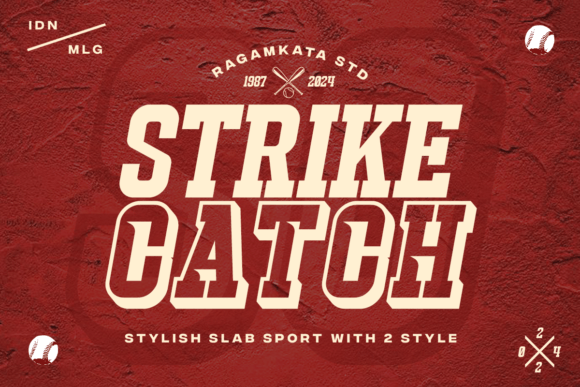
Introducing Strike Catch Font: The Ultimate Slab Sport Font for Modern Designs
Are you looking for a font that combines the power and speed of modern sports with the elegance of classic design? Look no further than Strike Catch, a stylish slab sport font that is perfect for a wide range of design projects. With its smooth curves, clear alternates, and modern aesthetics, Strike Catch is ideal for sports headlines, logos, branding, and more.
What is Strike Catch Font?
Strike Catch is a slab sport font that features 12 styles, including Regular, Italic, Outline, Extrude, Italic Outline, Italic Extrude, Slash, Slash Italic, Slash Outline, Slash Extrude, Slash Italic Outline, and Slash Italic Extrude. This versatile font is designed to add a powerful, attractive, and contemporary touch to any design.
Key Features of Strike Catch Font
- 12 styles: Regular, Italic, Outline, Extrude, Italic Outline, Italic Extrude, Slash, Slash Italic, Slash Outline, Slash Extrude, Slash Italic Outline, and Slash Italic Extrude
- Smooth curves: Giving the font a modern and sleek look
- Clear alternates: Ensuring readability and versatility
- Modern aesthetics: Perfect for sports headlines, logos, branding, and more
Use Cases for Strike Catch Font
Strike Catch is a versatile font that can be used for a wide range of design projects, including:
- Sports headlines: Add a powerful and dynamic touch to your sports news headlines
- Logos and branding: Create a strong and recognizable brand identity with Strike Catch
- Invitations: Add a touch of modern elegance to your invitations
- Magazines: Use Strike Catch for article titles, headings, and more
- Product packaging: Make your product stand out with a bold and eye-catching font
- Posters: Create striking posters with Strike Catch’s modern and sleek design
Who Can Benefit from Strike Catch Font?
Strike Catch is ideal for:
- Personal projects: Add a professional touch to your personal design projects
- Studios: Use Strike Catch for client projects and add a modern twist to your designs
- Corporate: Create a strong and recognizable brand identity with Strike Catch
- Creative agencies: Use Strike Catch for client projects and add a touch of modern elegance to your designs
Why Choose Strike Catch Font?
There are many reasons to choose Strike Catch font for your design projects. Here are a few:
- Unique design: Strike Catch has a unique and modern design that will set your project apart
- Versatility: With 12 styles to choose from, Strike Catch can be used for a wide range of design projects
- Readability: Strike Catch’s clear alternates and smooth curves ensure readability and versatility
- Modern aesthetics: Strike Catch has a modern and sleek design that will add a touch of elegance to any project
In conclusion, Strike Catch font is a stylish slab sport font that is perfect for modern designs. With its smooth curves, clear alternates, and modern aesthetics, Strike Catch is ideal for sports headlines, logos, branding, and more. Its versatility and readability make it suitable for a wide range of design projects, from invitations to product packaging. Whether you’re a designer, developer, or simply a DIY enthusiast, Strike Catch font is a great choice for adding a powerful, attractive, and contemporary touch to your designs.